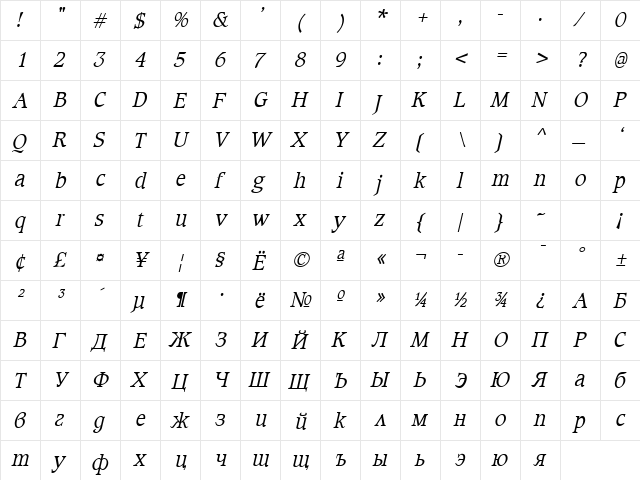
Cotlin Italic
Design Context for Cotlin Typeface
Cotlin takes a measured approach to typography — its balanced proportions and neutral character make it a reliable workhorse for both digital and print work. Its italic angle brings a sense of urgency and motion to the letterforms.
Pro Tip: Try Cotlin for annotation and caption copy alongside an upright companion — the contrast in angle creates a dynamic but ordered typographic system.